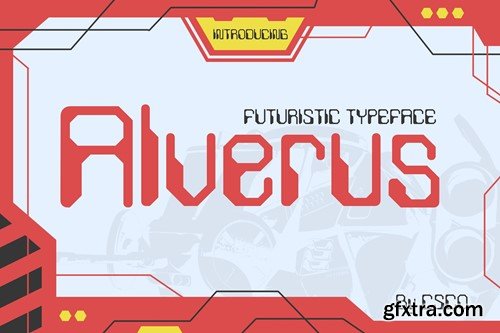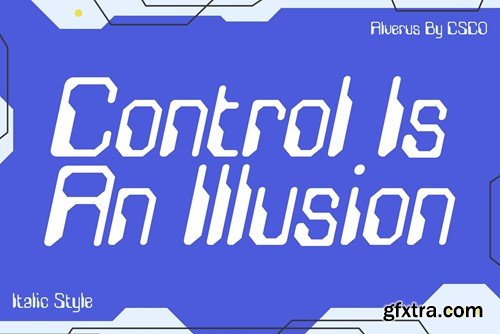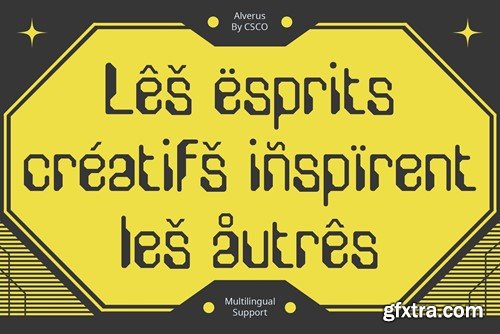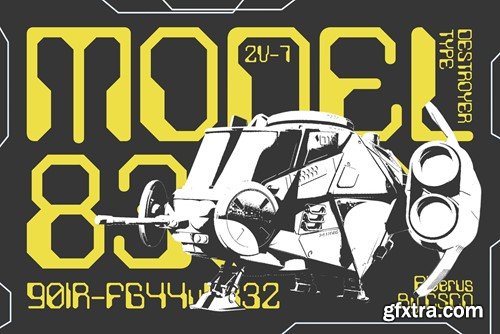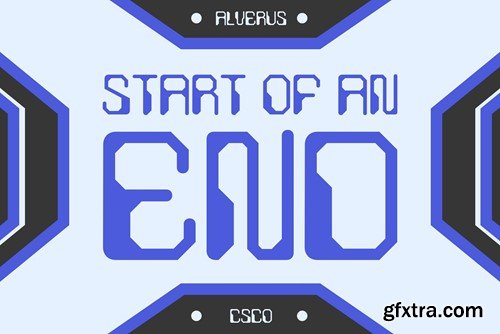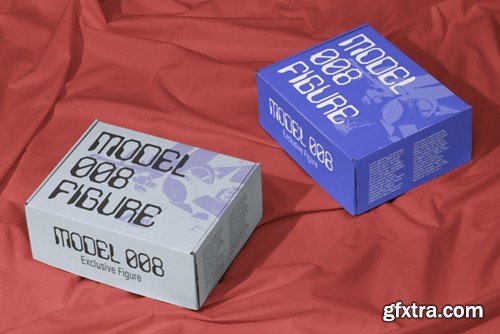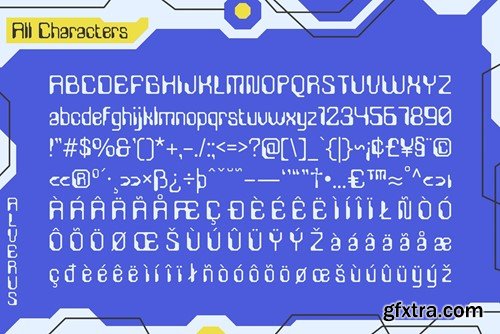
Alverus Font: A Futuristic Ode to Gundam Futuristic Marvel Alverus, a cutting-edge font inspired by Gundam aesthetics, catapults your designs into a realm of futuristic marvel display. Sleek Gundam Influence Immerse your projects in the sleekness of Gundam’s high-tech design. Alverus mirrors the iconic mecha’s aesthetic, making it a standout choice for futuristic displays. Tech-Infused Typography With Alverus, each character is a testament to tech-infused typography. The font exudes a sense of advanced machinery, giving your designs a dynamic and contemporary vibe. Bold and Unconventional Alverus breaks the mold of conventional typefaces. Its bold strokes and unconventional shapes demand attention, making it perfect for titles and statements that need to stand out. Conclusion Step into the future with Alverus, where the influence of Gundam transforms your designs into bold, cutting-edge statements. This font is not just type; it’s a journey into a futuristic visual narrative. What you get : Alverus Regular Alverus Italic Features : Uppercase and lowercase characters Numerals and Punctuation (OpenType Standard) Accents (Supports Multilingual Characters) PUA Encoding You can use this typeface without needing any specialized software. If you have any inquiries or need assistance, please feel free to contact us. We appreciate your support in enhancing your creative projects! Best regards, Craft Supply Co.